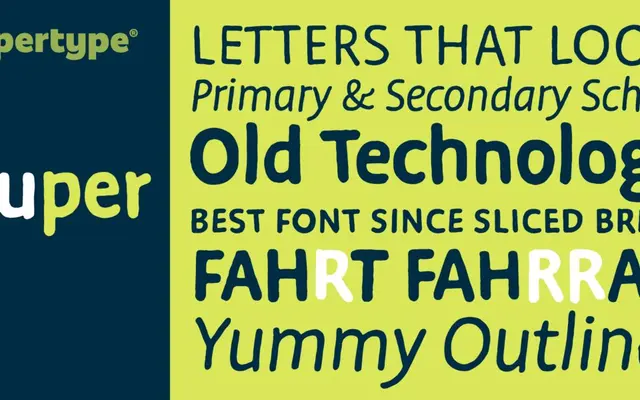
Duper
Supertype · Martin Wenzel
A four-style humanist sans by Martin Wenzel with a relaxed character and a distinctive OpenType feature that cycles through glyph triplicates to vary word rhythm.
Available in Regular and Bold with matching italics, Duper covers 135 languages and 1,451 glyphs. Its standout feature is a letter-loop function that processes vowels and consonants separately when cycling through three alternates per character, producing more varied and natural-looking text. The family also includes alternate forms for a, g and y, multiple number sets, fraction support and sets of arrows and ornaments.
Duper presents as a humanist sans with a relaxed, informal character. The page describes it as combining aesthetics and nonchalance, suggesting a warm, readable sans rather than a geometric or grotesque construction.